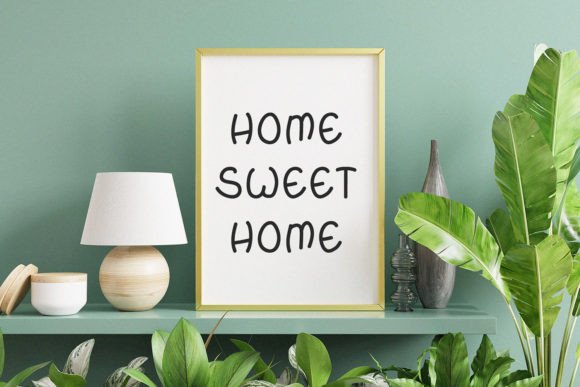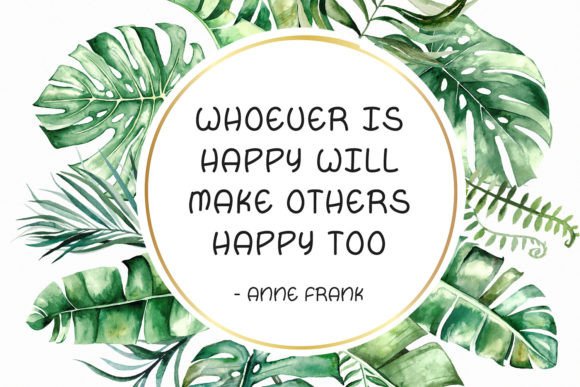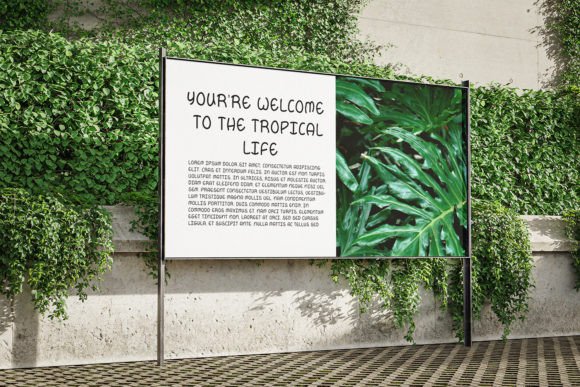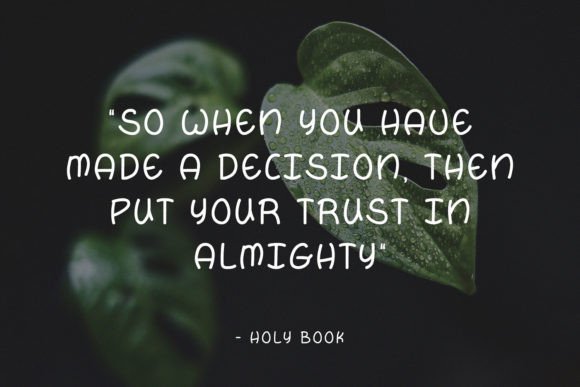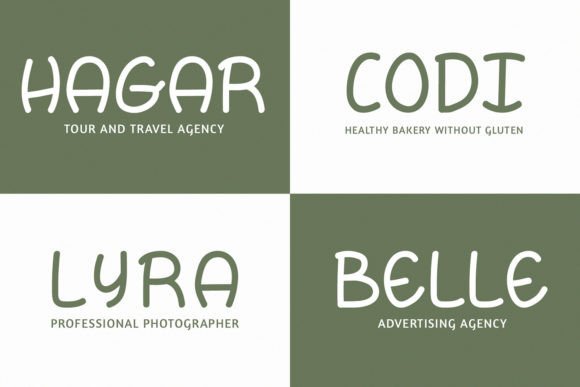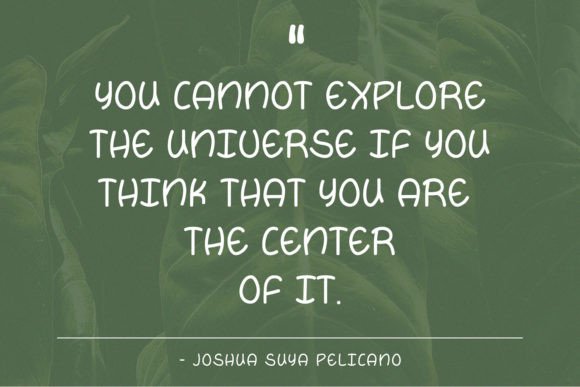
Babis Font: Elevate Your Designs with a Touch of Elegance
Are you a designer or crafter looking for a font that can add a touch of elegance and sophistication to your creative projects? Look no further than Babis Font, a beautiful handwritten font that is sure to take your designs to the next level. In this article, we’ll take a closer look at the features and benefits of Babis Font, and explore how it can be used to create stunning visual content.
What is Babis Font?
Babis Font is a carefully crafted handwritten font that is designed to bring a touch of natural elegance to your designs. With its flowing and magical lines, this font is perfect for creating beautiful and eye-catching visual content. Whether you’re working on a logo, packaging design, or social media post, Babis Font is sure to make your designs stand out.
Key Features of Babis Font
So, what makes Babis Font so special? Here are just a few of its key features:
• Uppercase and Lowercase Letters: Babis Font includes both uppercase and lowercase letters, making it perfect for creating titles, headings, and body text.
• Numbers and Punctuation: The font also includes numbers, punctuation, and symbols, giving you everything you need to create professional-looking designs.
• Multilingual Support: Babis Font supports multiple languages, making it a great choice for designers who work with international clients or want to create content for a global audience.
Uses for Babis Font
So, what can you use Babis Font for? The possibilities are endless! Here are just a few ideas to get you started:
• Packaging Design: Add a touch of elegance to your product packaging with Babis Font.
• Presentations: Use Babis Font to create stunning presentations that will engage and impress your audience.
• Logos and Branding: Create a professional and cohesive brand identity with Babis Font.
• Posters and Flyers: Design eye-catching posters and flyers that will grab attention and drive results.
• Social Media Graphics: Use Babis Font to create stunning social media graphics that will help you stand out online.
Benefits of Using Babis Font
So, why should you choose Babis Font for your design projects? Here are just a few benefits of using this amazing font:
• Elegance and Sophistication: Babis Font adds a touch of elegance and sophistication to your designs, making them perfect for high-end brands and luxury products.
• Versatility: With its wide range of uses and applications, Babis Font is a versatile font that can be used for everything from packaging design to social media graphics.
• Easy to Read: The flowing lines and natural feel of Babis Font make it easy to read, even at small sizes.
Tips for Using Babis Font
Here are a few tips for getting the most out of Babis Font:
• Experiment with Different Sizes: Try using Babis Font at different sizes to see how it looks and feels.
• Pair it with Other Fonts: Combine Babis Font with other fonts to create a unique and eye-catching visual style.
• Use it for Headings and Titles: Babis Font is perfect for headings and titles, so don’t be afraid to use it to add a touch of elegance to your designs.
Font Name Babis Font
Author creativetacos
In conclusion, Babis Font is a beautiful and versatile handwritten font that is perfect for designers and crafters who want to add a touch of elegance and sophistication to their designs. With its flowing lines, natural feel, and wide range of uses, Babis Font is sure to become a go-to font in your design toolkit. So why wait? Download Babis Font today and start creating stunning visual content that will engage and impress your audience!